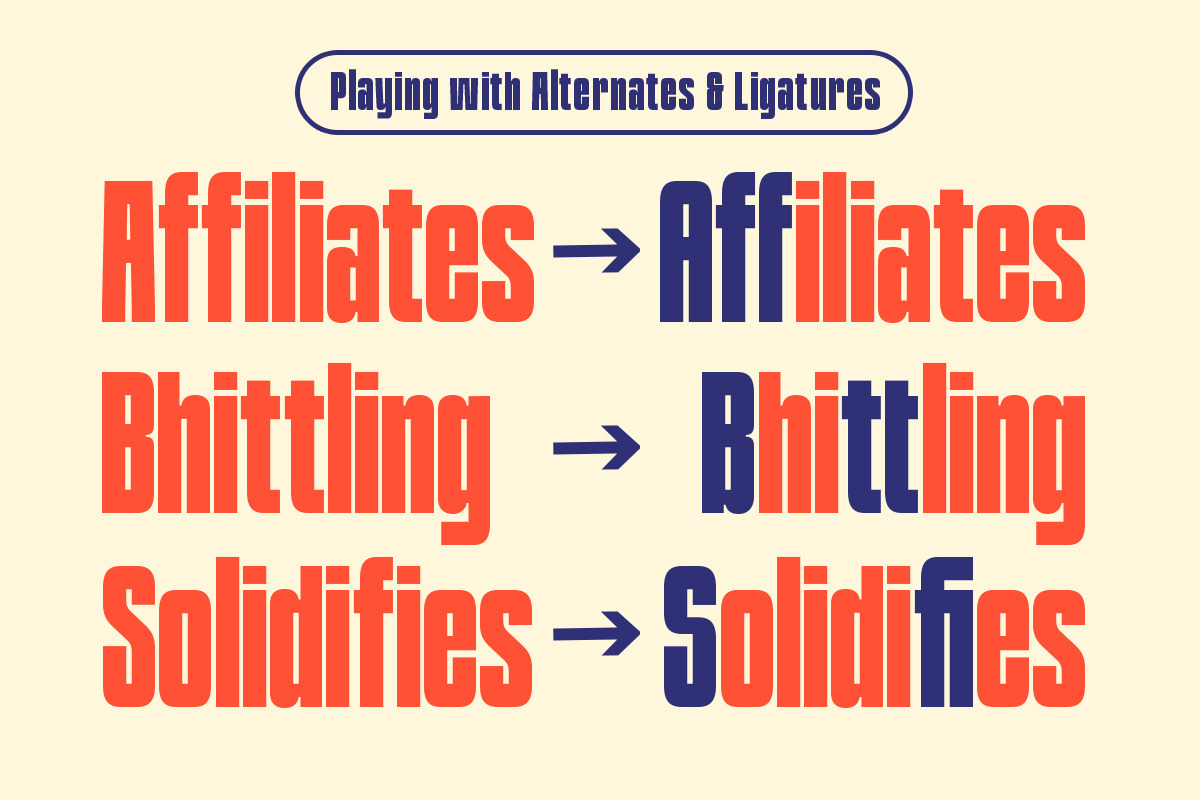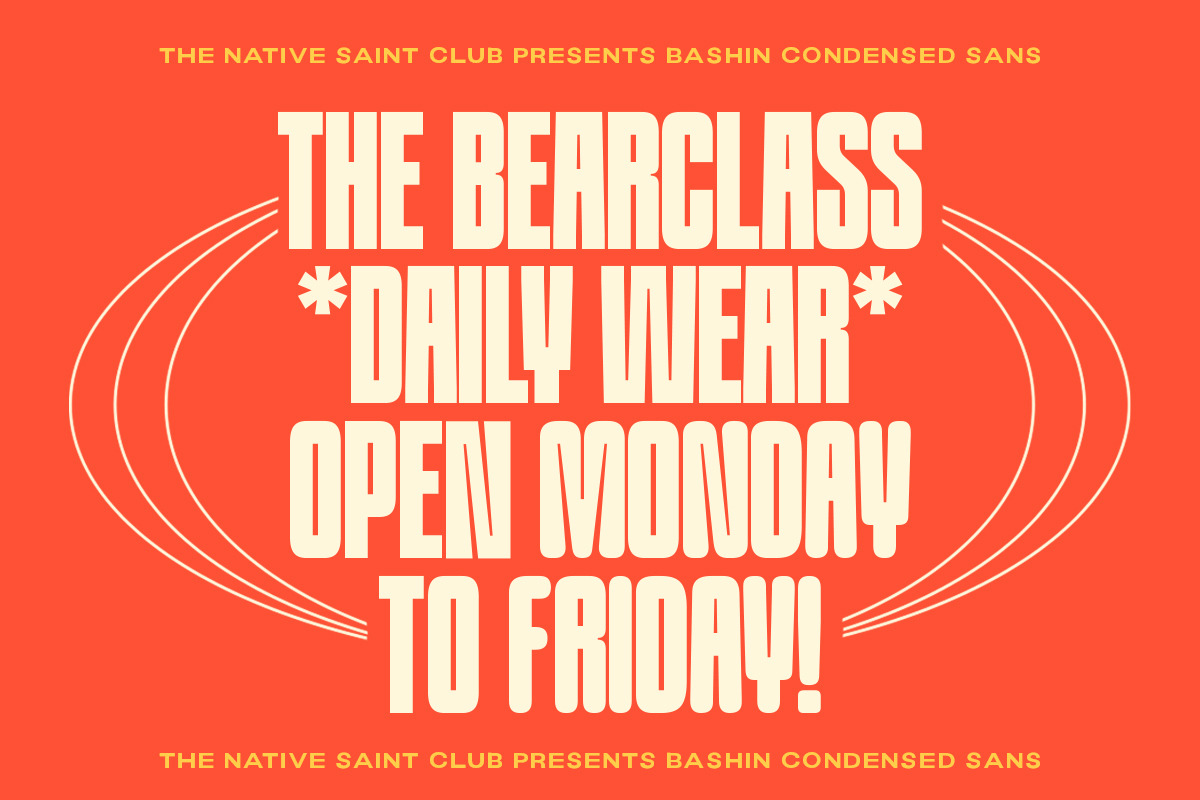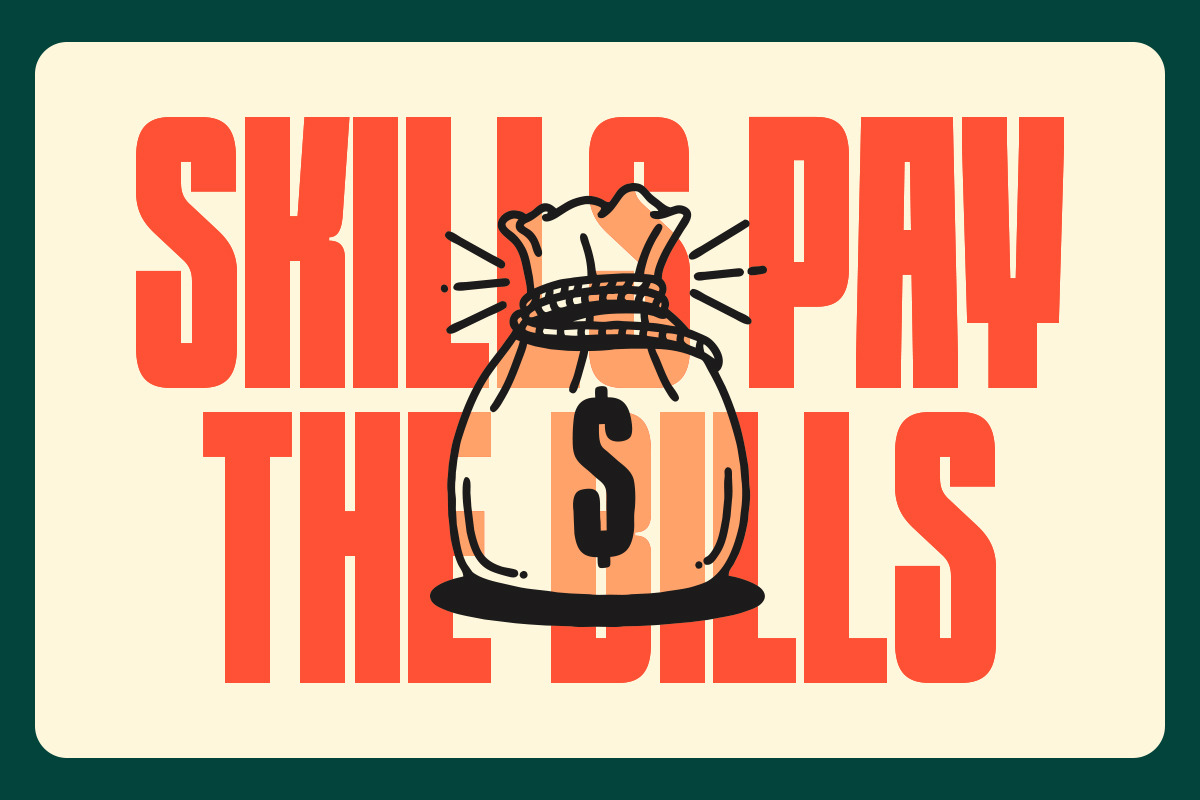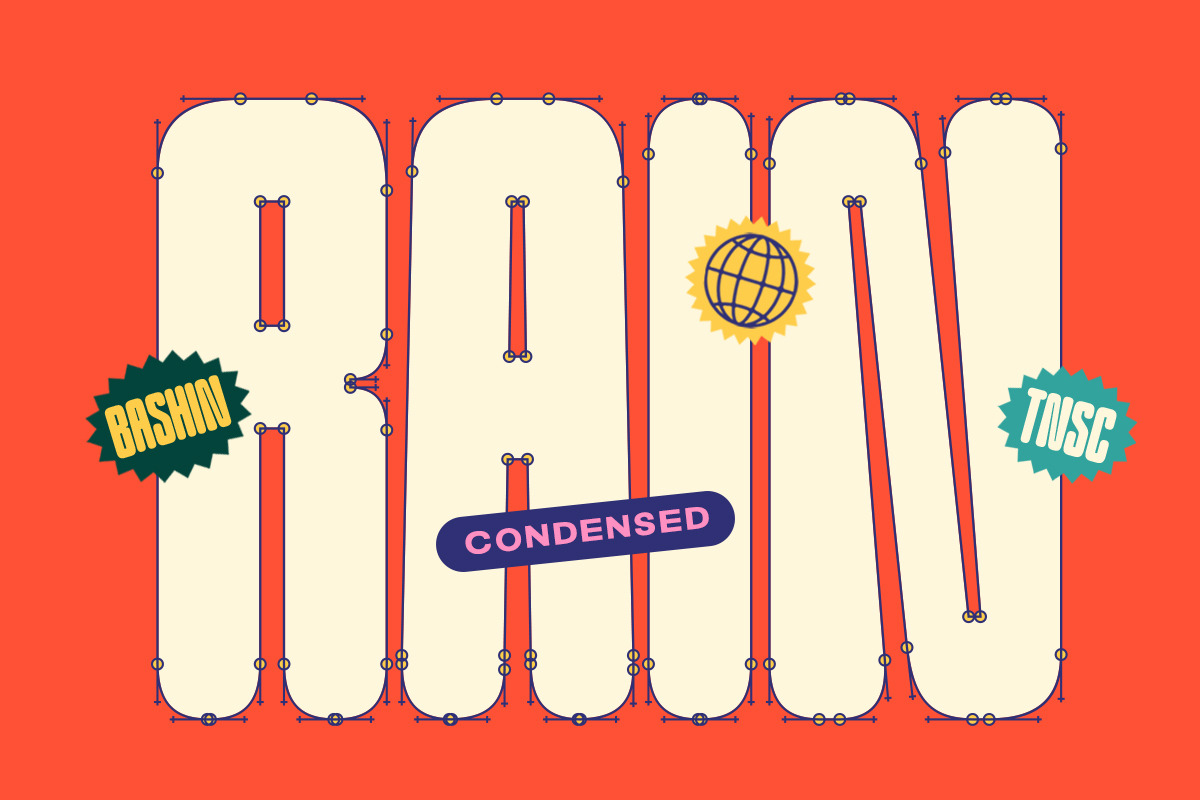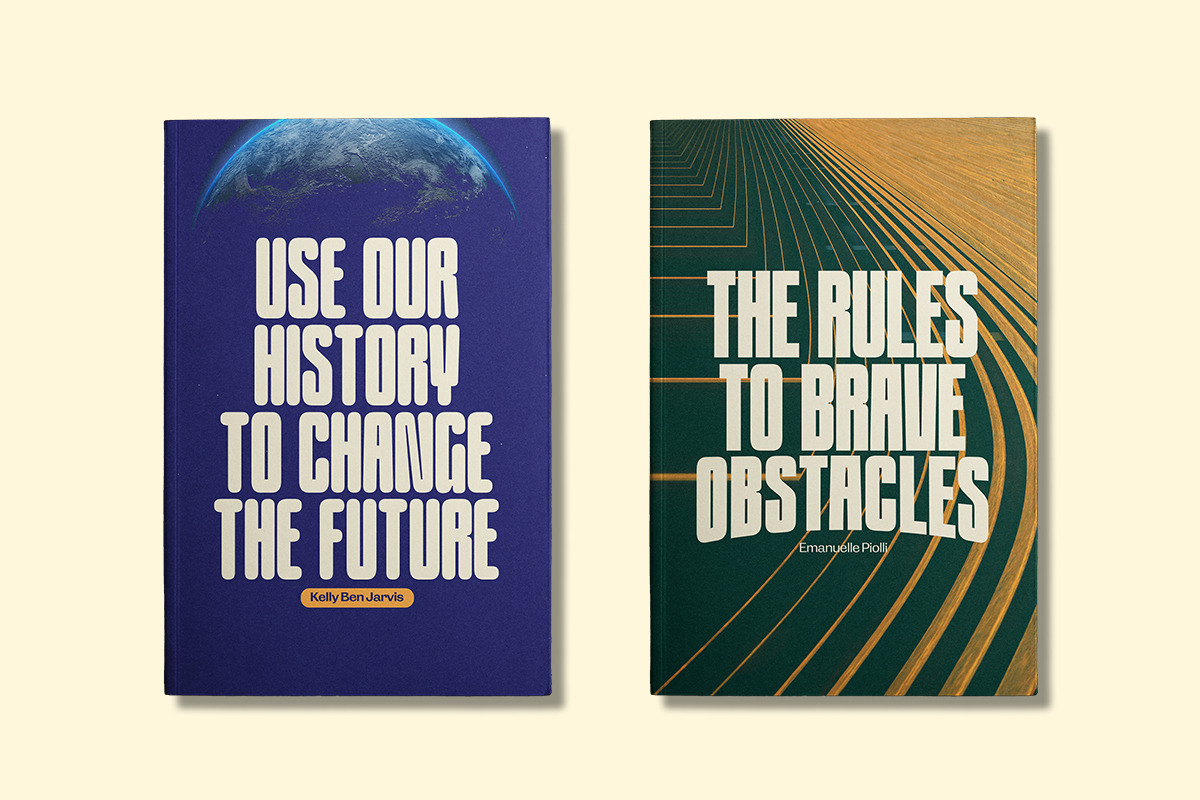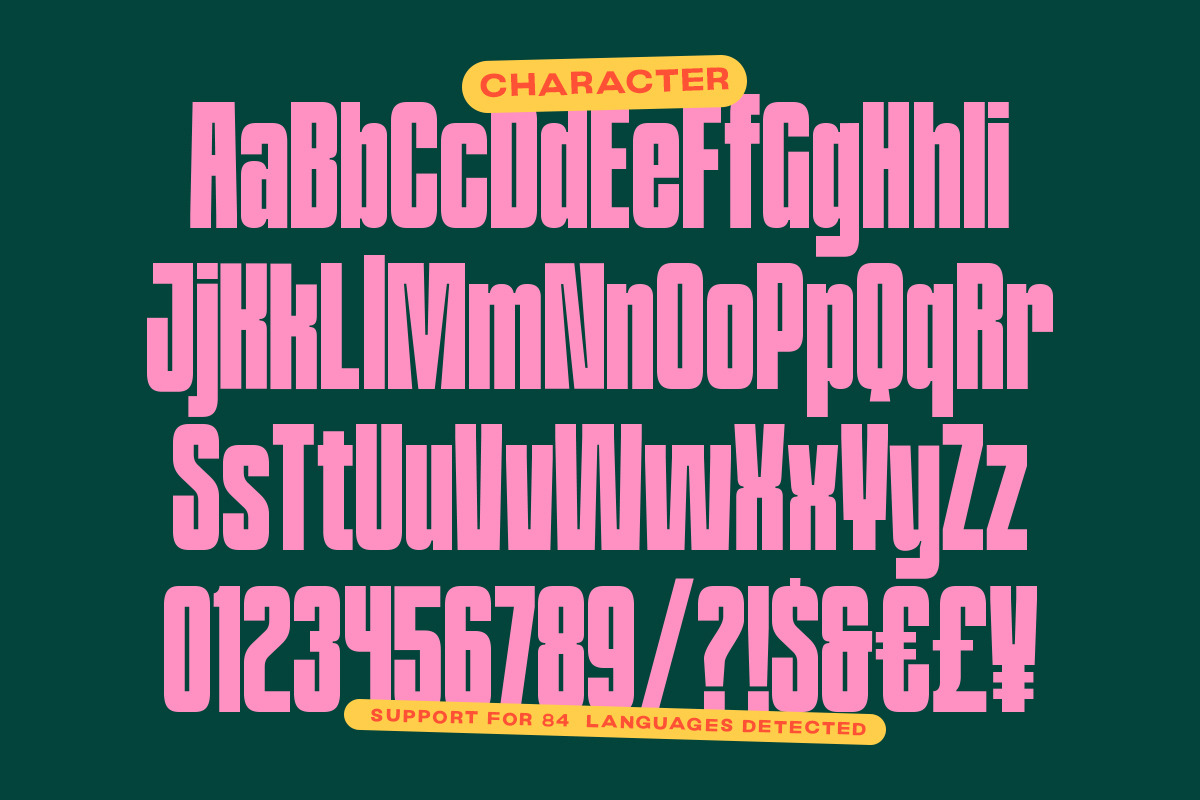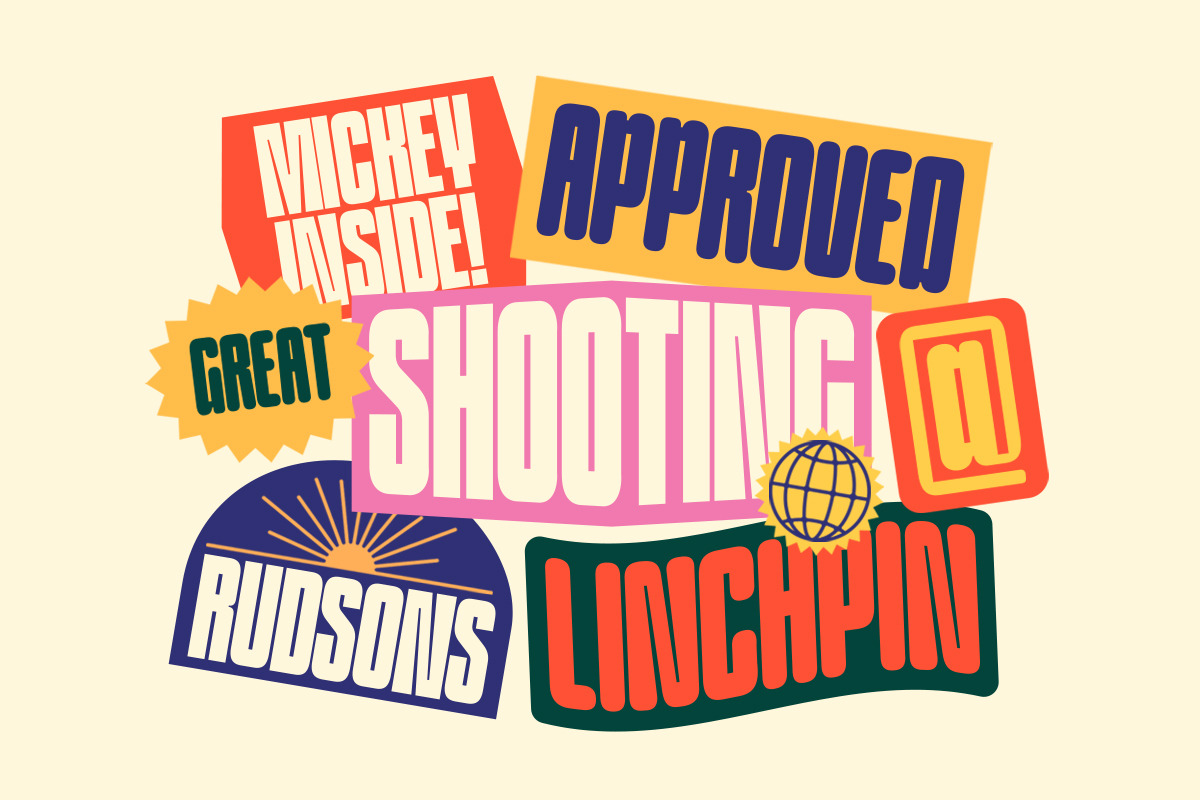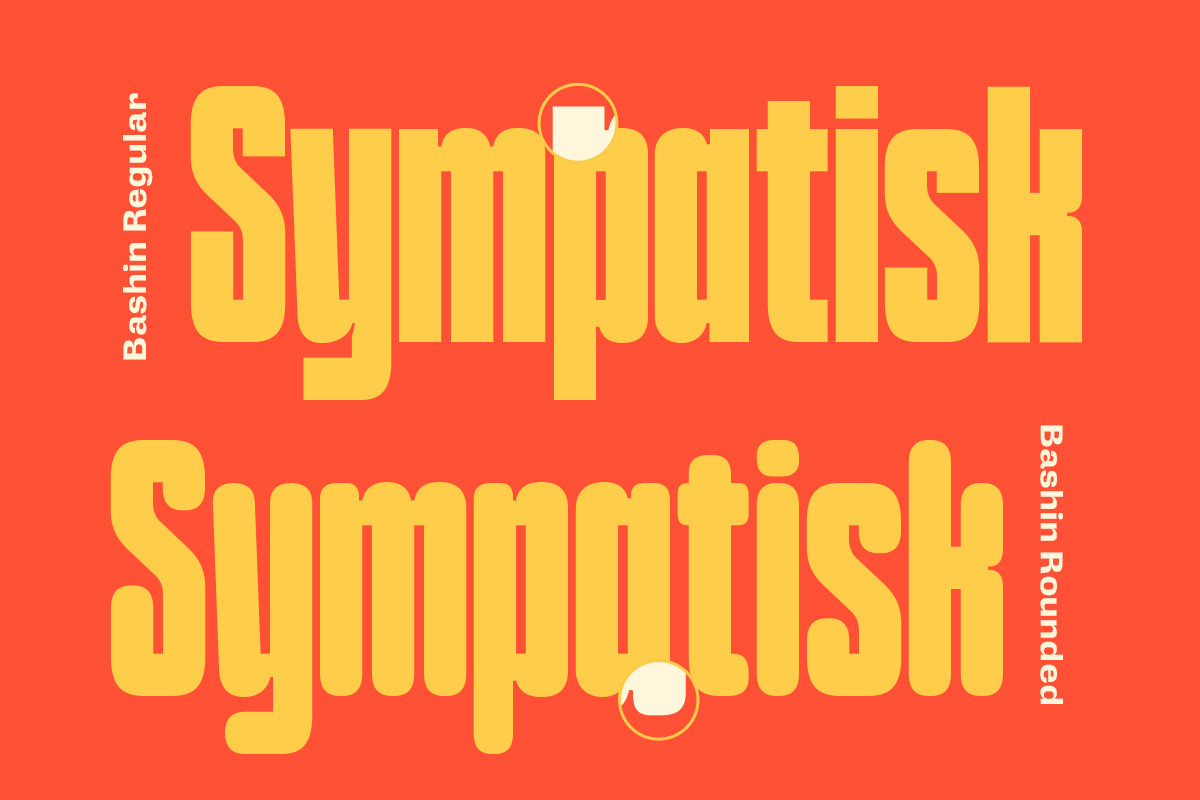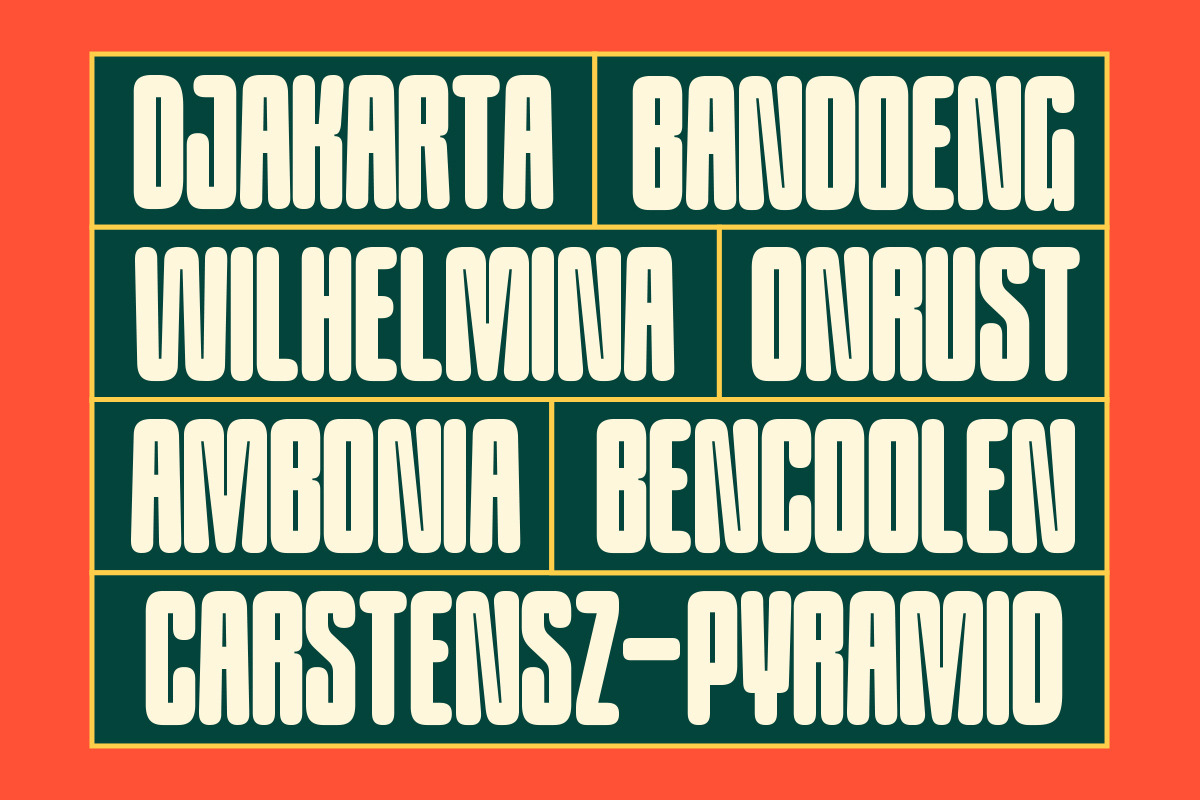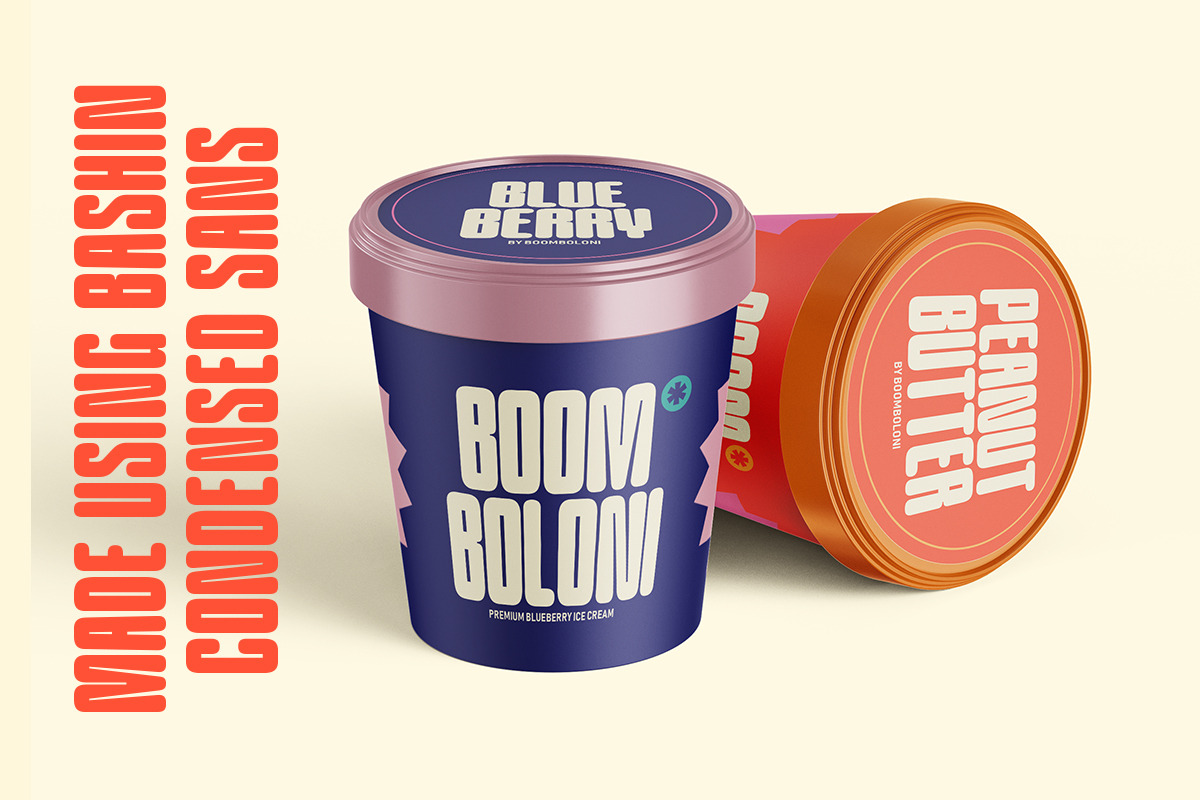
TNSC Bashin - Condensed Sans Serif
TNSC Bashin is a condensed sans serif font. comes with two styles, regular and rounded. With a few ligatures and some alternates. Looks legible and expressive shapes. it is perfect for poster design, headlines, magazines, billboards, branding, and logos.